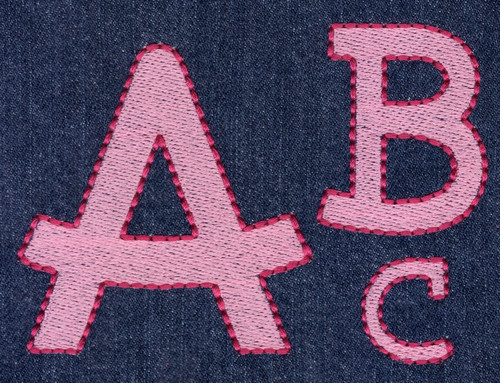
455 Rocky Horse Fill & Floss Font
Rocky Horse Fill & Floss Font comes in 1", 2" and 3" heights based on the capital "A". All sizes are finished in fill stitch with Floss Stitch outlines in 2-color set up. Floss Stitch stitches out on all embroidery machines using standard embroidery thread. All sizes include uppercase letters, lowercase letters, numbers and four punctuation marks.